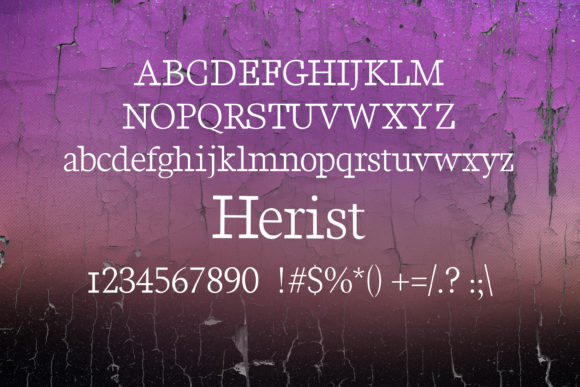
The Herist Font: A Timeless Serif for Creative Projects
An Honest Review of Herist Font
- ✅ Classic and simple design that’s easy on the eyes
- ✨ Highly legible, even at small font sizes
- 💡 Perfectly suited for a wide variety of projects, from print to digital
- 🎨 Beautifully crafted serif details that add a touch of elegance
While Herist is an excellent font, it’s not without its quirks. For example, some users may find that:
- 🤔 The font can appear a bit too similar to other serif typefaces, making it hard to distinguish in certain contexts
- ⚠️ Some OpenType features may not work seamlessly across all platforms or software
A Practical Guide to Using Herist Font
- Experiment with OpenType features like ligatures and stylistic alternates to add visual interest
The Story Behind Herist Font
Herist was designed with the goal of creating a timeless, versatile serif typeface that would be suitable for a wide range of creative projects. Inspired by classic fonts from the past, the designer aimed to craft a font that was both elegant and highly legible. The result is a beautiful, simple serif font that’s perfect for designers, crafters, and creative hobbyists alike.
Q: Is Herist suitable for digital use?
A: Absolutely! Herist is designed to be highly legible, even at small font sizes, making it perfect for digital applications.
Q: Does Herist support OpenType features?
A: Yes, Herist supports a range of OpenType features, including ligatures and stylistic alternates, giving you more creative control over your typography.
Q: Can I use Herist in non-digital applications?
A: Of course! Herist is a versatile font that’s suitable for both print and digital applications, making it perfect for a wide range of creative projects.